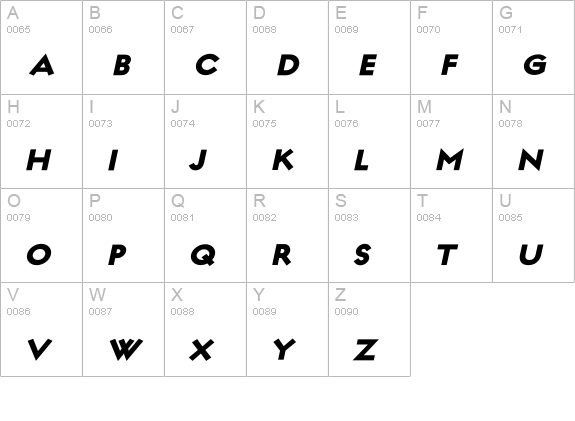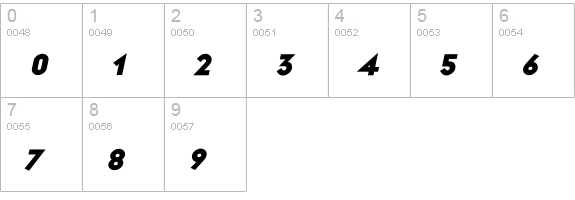
Regulator-HeavyItalic Font Details
Introducing Regulator-HeavyItalic font, a bold and captivating typeface that commands attention with its strong and slanted design. This font exudes confidence and sophistication, making it the perfect choice for projects that require a touch of elegance and authority. Regulator-HeavyItalic offers a unique twist on the classic italic style, with its heavy weight adding a sense of power and impact. Its letterforms are meticulously crafted, featuring sharp angles and gracefully flowing curves that effortlessly blend together to create a harmonious and visually appealing aesthetic. One of the standout features of Regulator-HeavyItalic is its versatility. Whether used in headlines, logos, or body text, this font stands out and adds a touch of personality to any design. It effortlessly captures attention and leaves a lasting impression. What makes Regulator-HeavyItalic even more appealing is that it is freely available to download at FontsMarket.com. This means that designers, creatives, and enthusiasts alike can access this remarkable font without any cost, allowing them to bring their visions to life with ease and without breaking the bank. So, if you're looking for a font that combines strength, elegance, and versatility, look no further than Regulator-HeavyItalic. Download it for free at FontsMarket.com and let your creativity shine.